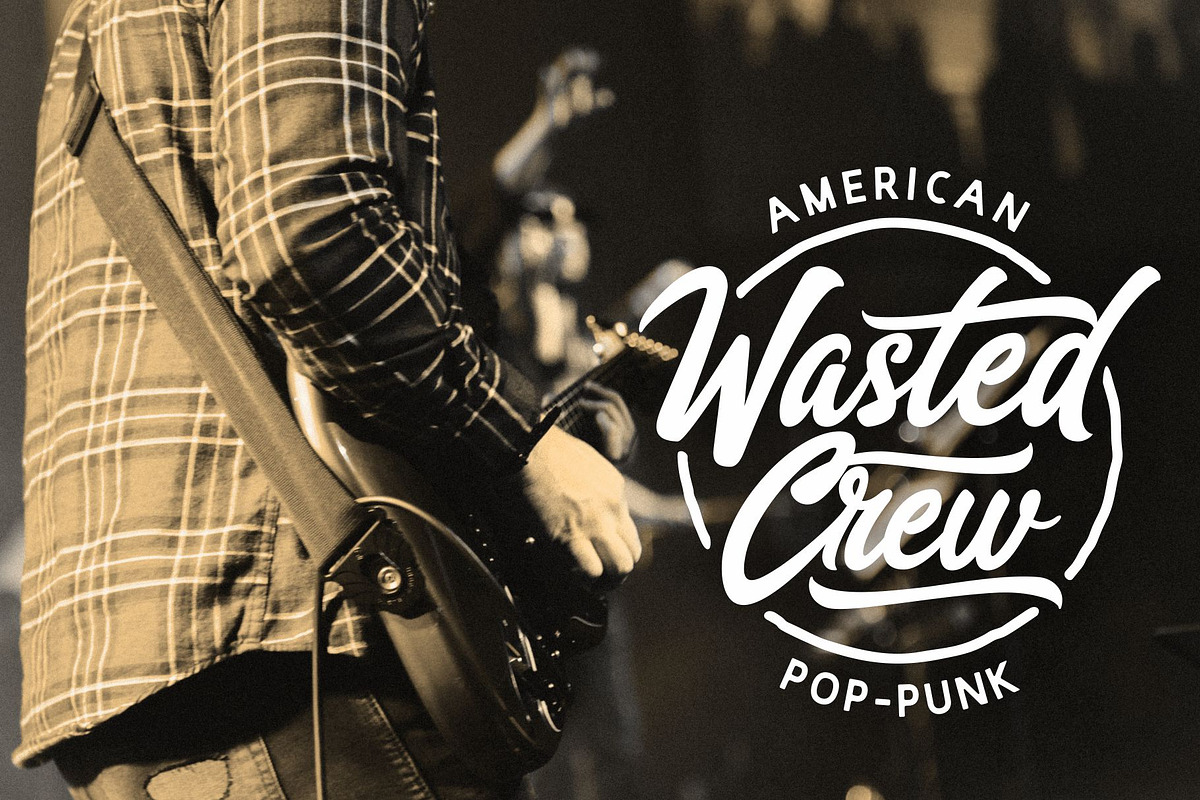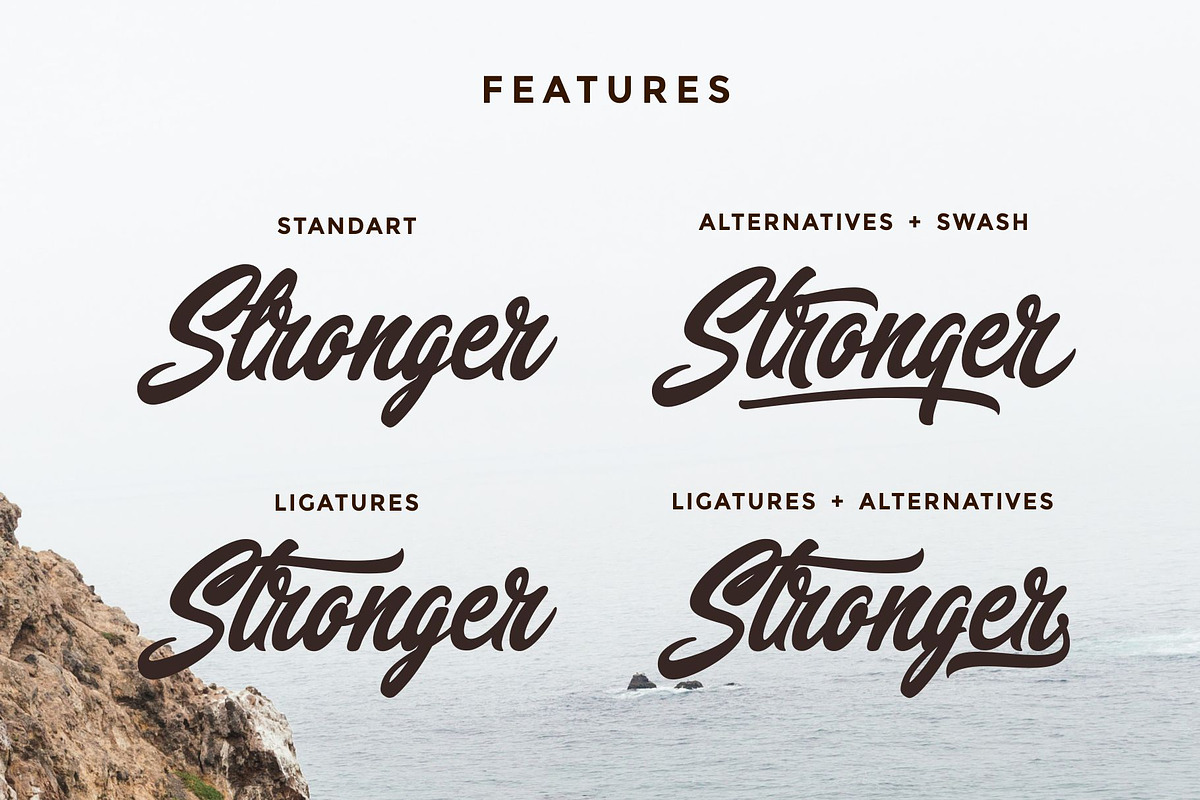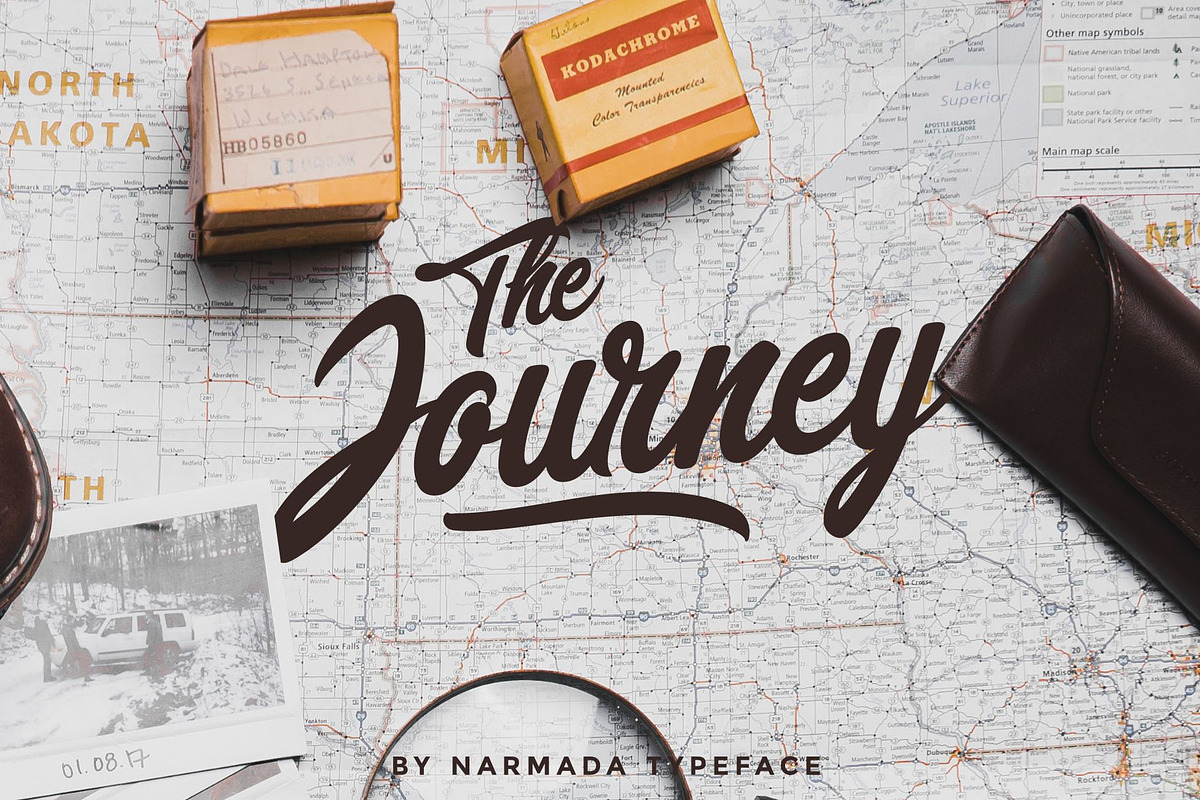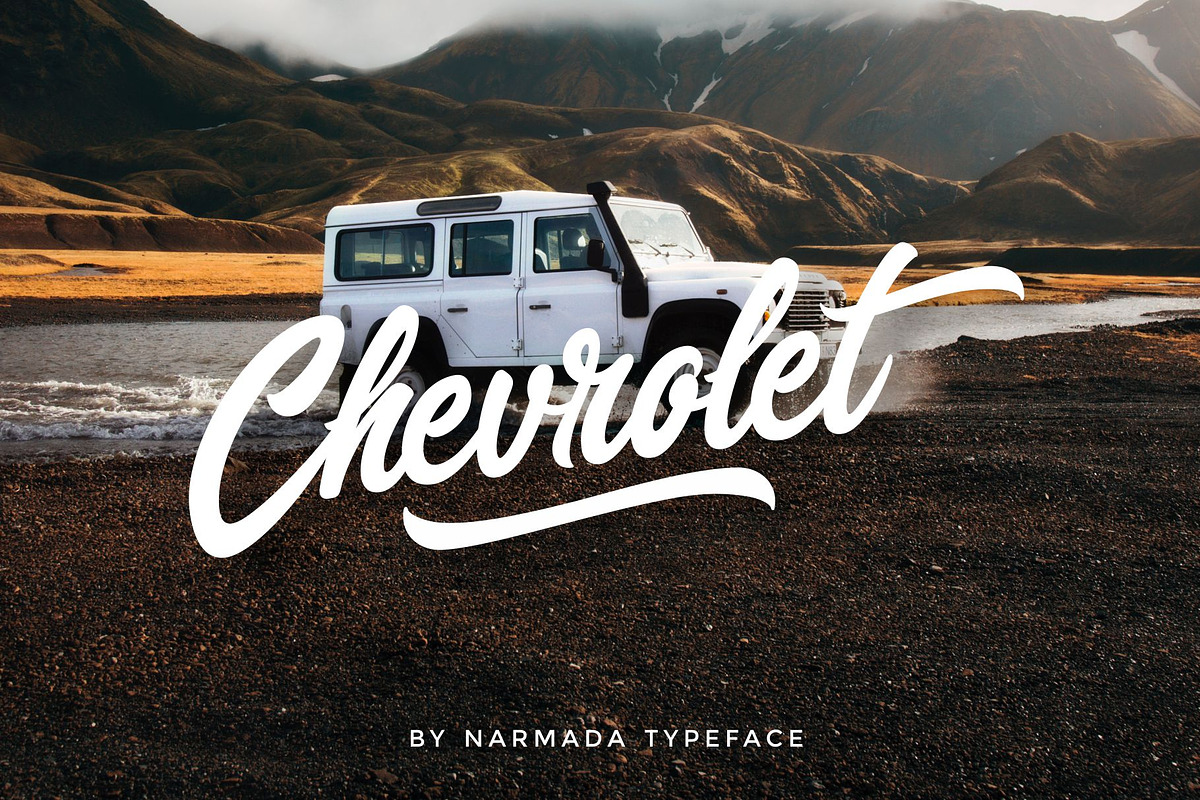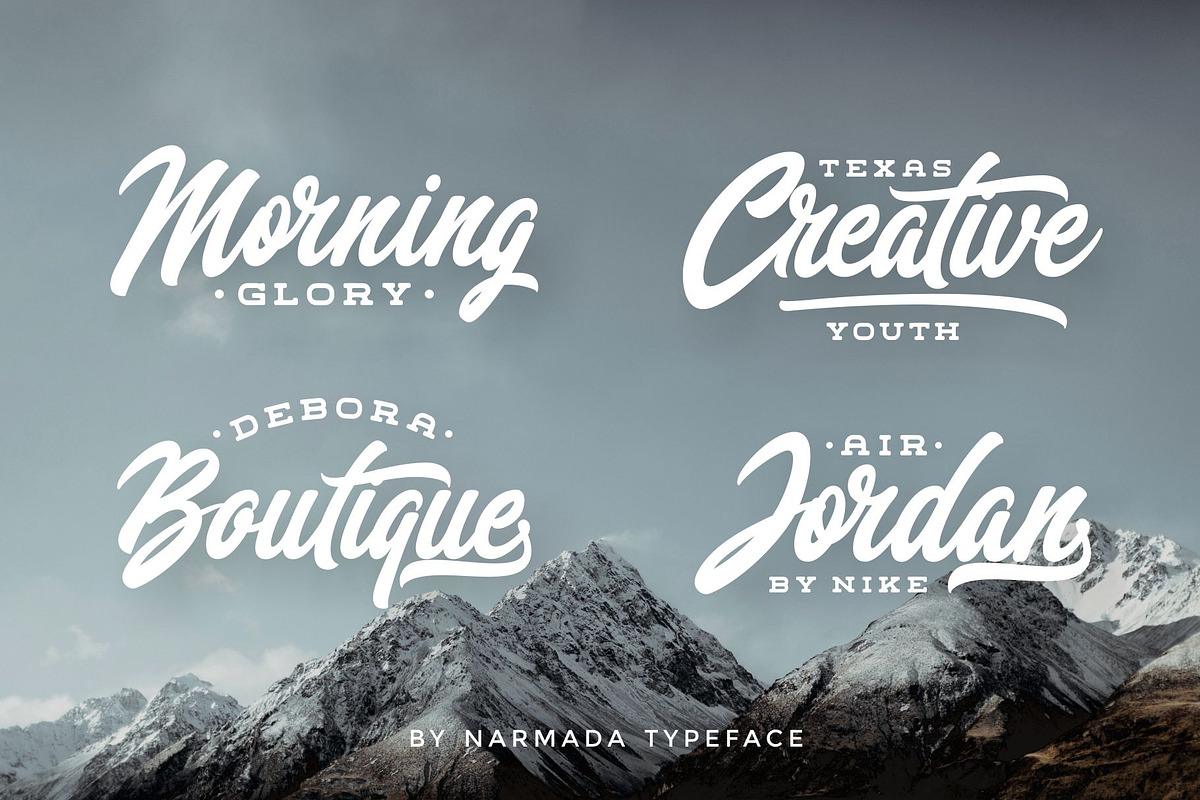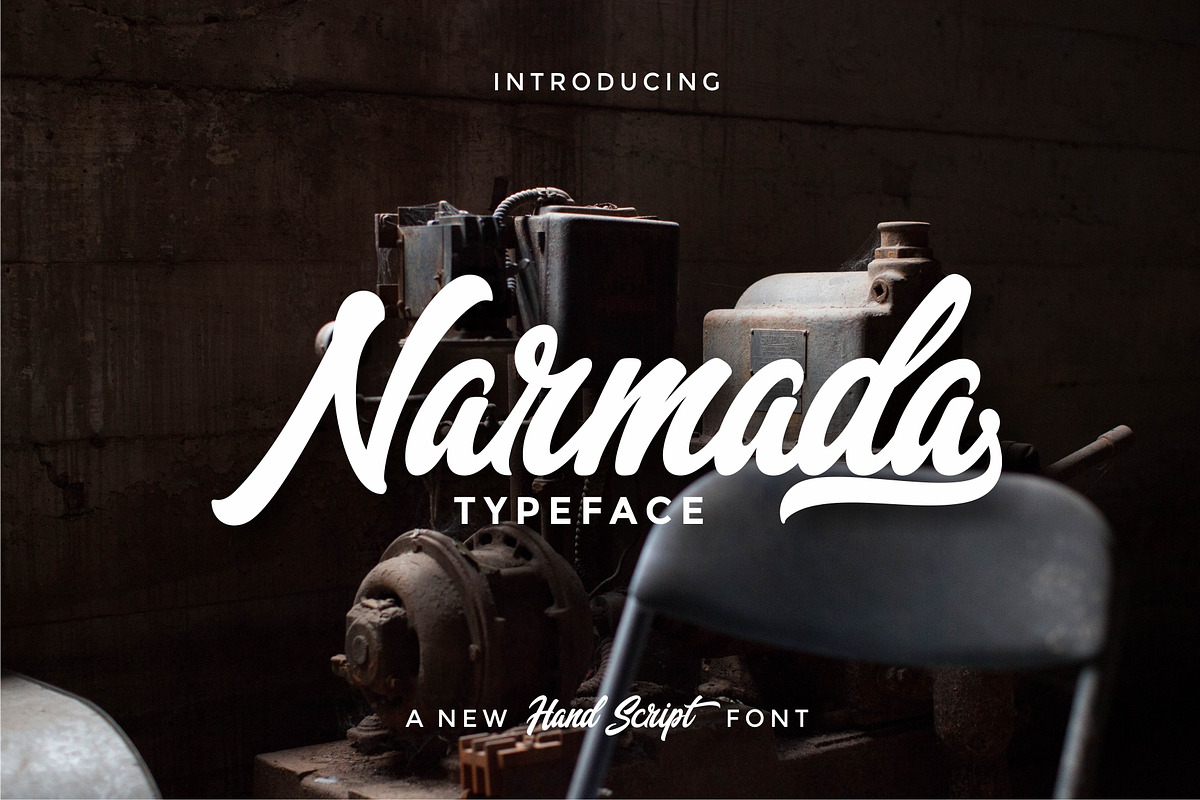
Narmada Typeface
INTRODUCING NARMADA TYPEFACE
Narmada Typeface is a modern script typeface. You can use it as a logo,logotype, badge, sign, packaging, headline, poster, t-shirt/apparel, greeting card, and another product. The flowing characters are ideal to make an attractive messages, mix and match Narmada with a bunch of alternative characters to fit your project.
Narmada Typeface comes with uppercase, lowercase, numerals, punctuations and so many variations on each characters include opentype alternates, ligatures and also additional swash to let you customizing your designs.
Narmada Typeface by ngene fits naturally into Branding, posters, packaging, typography.